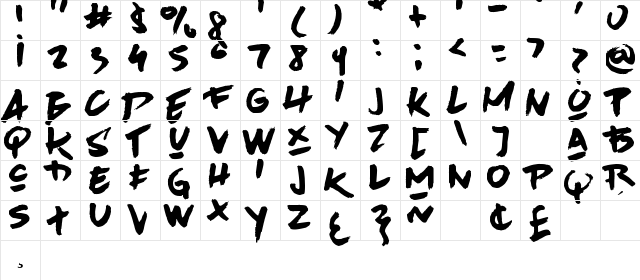
Avenue Drift Regular
| Designer | Leonard Posavec |
Design Context for Avenue Drift Typeface
Avenue Drift is a composed and adaptable typeface that performs quietly and consistently across a wide range of design contexts.